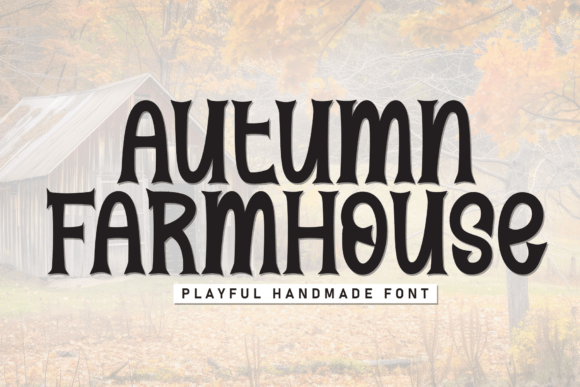
Discover the Charm of Autumn Farmhouse Font
A Font that Radiates Joy and Friendliness
The Autumn Farmhouse Font is a charmingly playful, handwritten display font that exudes an air of sweetness and friendliness. Its lovable and entertaining aura makes it an ideal choice for adding a joyful touch to wedding invitations, cards, or any design that yearns for a burst of cheerfulness. With this delightful font, you can enhance your creation and make an endearing impact on your audience.
- ✨ The font’s playful and whimsical feel makes it perfect for designs that require a personal touch.
- ✅ The characters are well-spaced and easy to read, even at smaller sizes.
- 💫 The font comes with a range of OpenType features, glyphs, and stylistic alternates, giving you plenty of creative options.
While the Autumn Farmhouse Font is a beautiful addition to any design, there are a few things to keep in mind:
- ⚠️ Some of the more intricate details may get lost at very small sizes, so it’s best to use it at larger sizes (30px and above).
- 🤔 The font may not be the best choice for body text, as it’s more suited for headings and titles.
The Designer Inspiration Behind Autumn Farmhouse Font
The Autumn Farmhouse Font was inspired by the warmth and coziness of a rustic farmhouse on a crisp autumn day. The designer aimed to capture the feeling of a handwritten journal, with all its imperfections and quirks. The result is a font that’s both playful and elegant, perfect for adding a personal touch to your designs.
Q: What type of designs is Autumn Farmhouse Font best suited for?
A: Autumn Farmhouse Font is perfect for designs that require a playful, whimsical touch, such as wedding invitations, cards, and social media graphics.